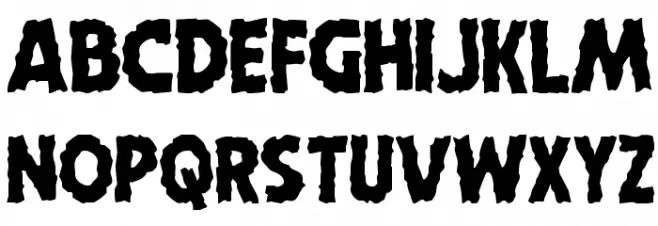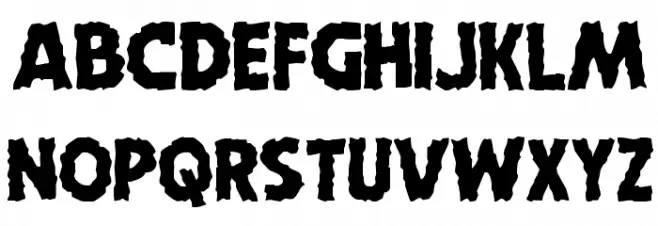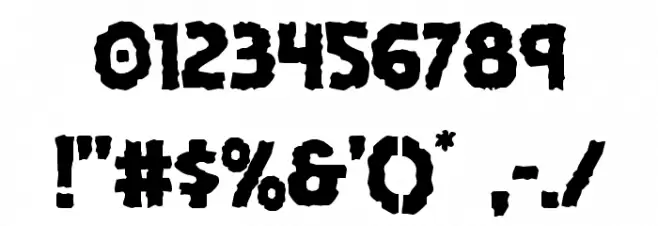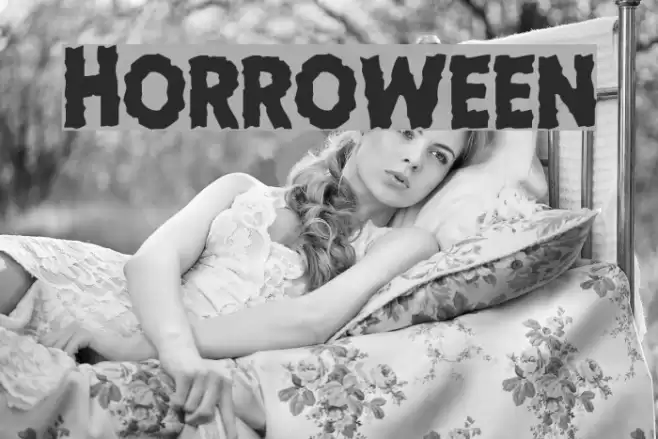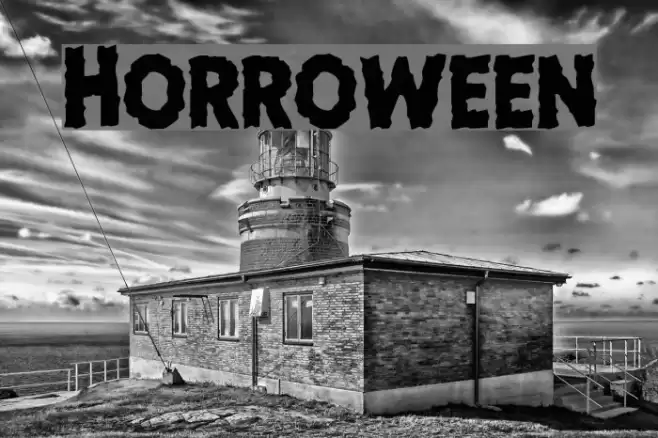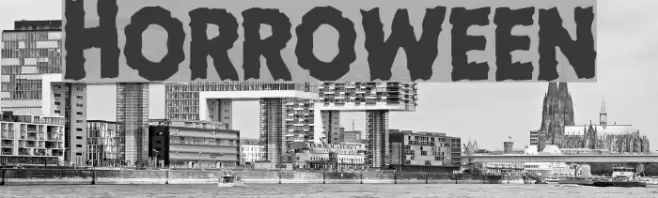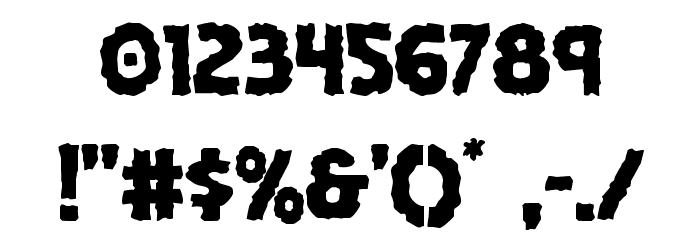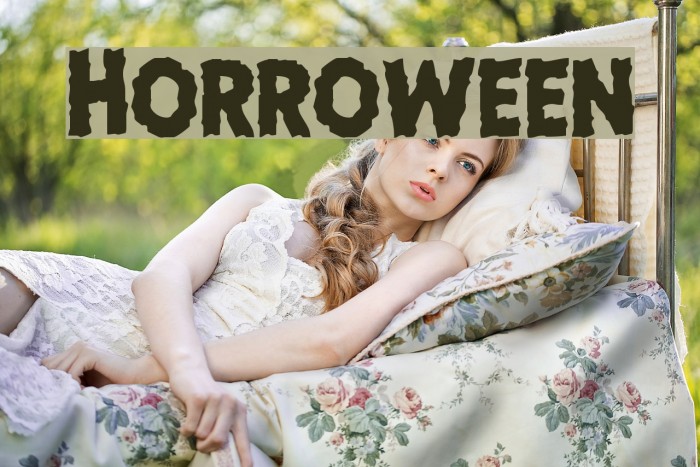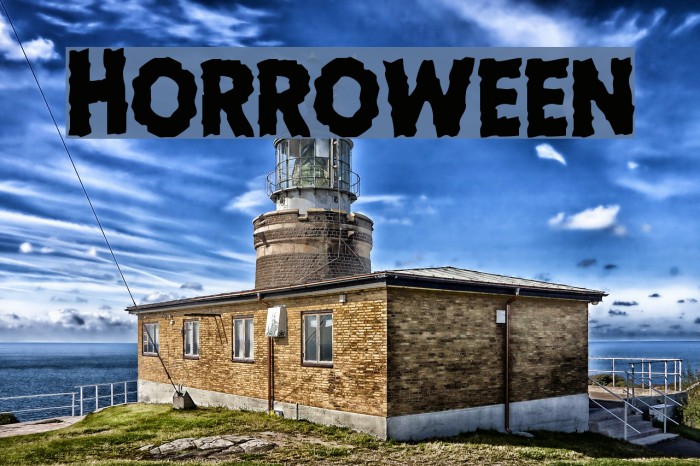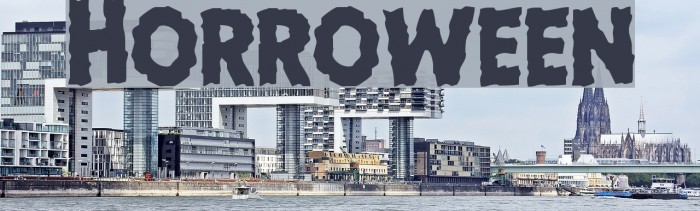
Horroween
This font features a bold, jagged style that evokes a spooky, eerie atmosphere, perfect for Halloween-themed designs. The characters have irregular edges, giving them a distressed and worn appearance. The uppercase and lowercase letters maintain a consistent style, with a slightly exaggerated width that enhances their visibility. Numbers and special characters follow the same rugged design, ensuring a cohesive look across all text elements. This font is ideal for creating eye-catching headlines, posters, and invitations that require a touch of horror or mystery.
A bold, jagged font with a spooky, distressed style.
- Proposed Projects: Ideal for Halloween posters, horror movie titles, themed invitations, and spooky event signage.
- Overall Style: Decorative
- Use Case: Headlines, Logos, Posters